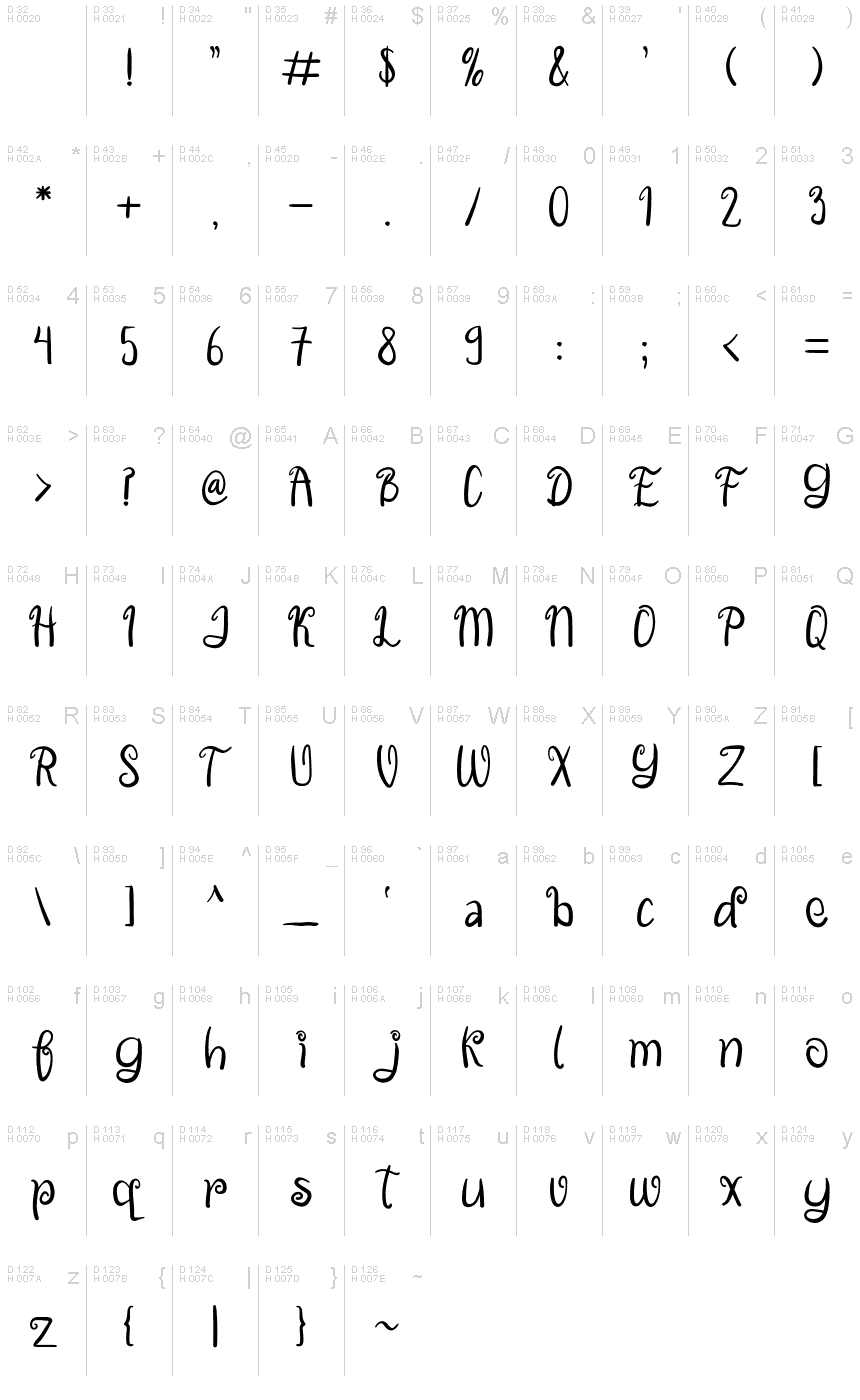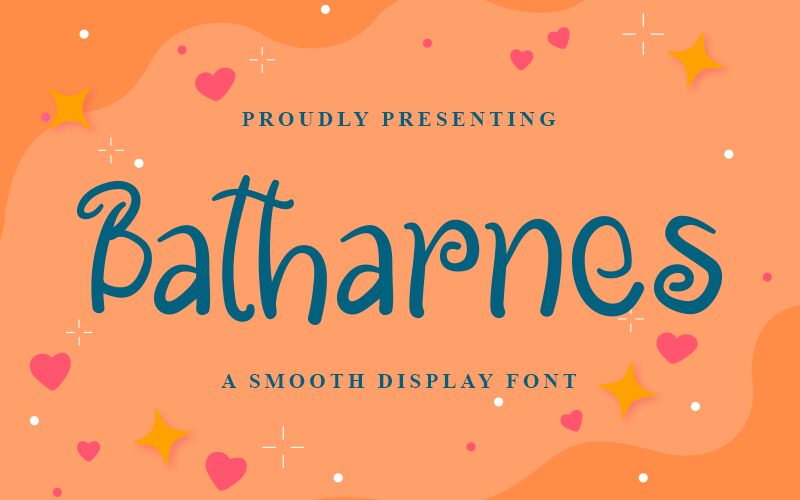
Batharnes
Batharnes Font is a Smooth Display Font which made from cute and chic Handwritting designed by Denny Sutanto. It will elevate a wide range of design projects to the highest level, be it branding, headings, wedding designs, signatures, logos, labels, and much more!